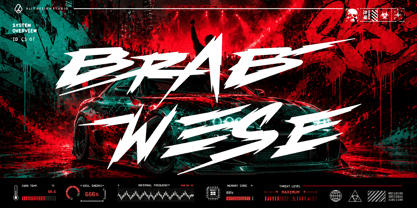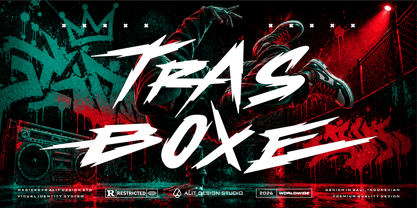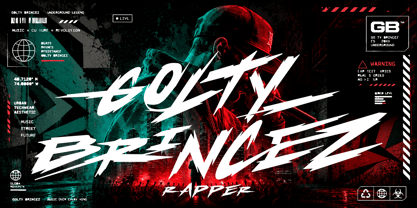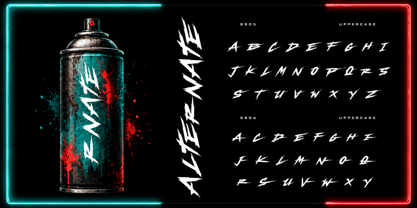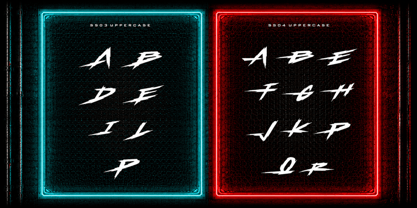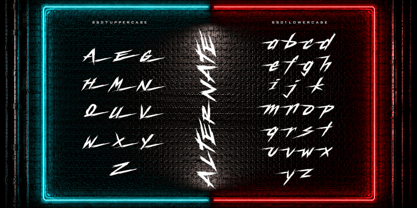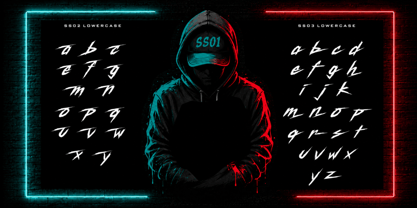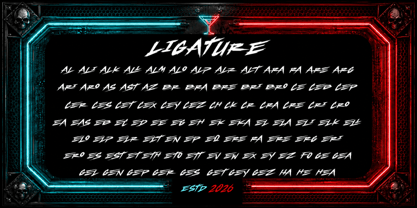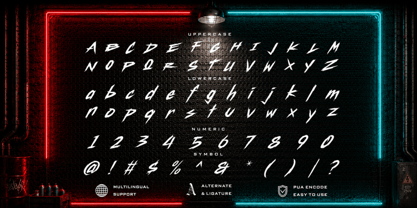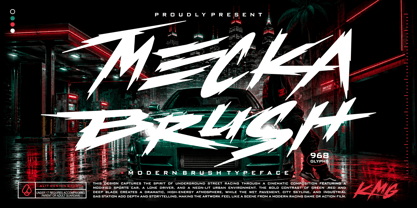
Mecka Brush
Unleash raw, unapologetic energy into your designs with Mecka Brush Typeface, a modern, aggressive, and highly dynamic brush font. Born from the grit of the streets and inspired by underground racing, urban streetwear, and hip-hop culture, this typeface delivers bold, sweeping strokes that immediately command attention.
Whether you are designing for the fast-paced world of automotive sports or creating a striking visual identity for a streetwear brand, Mecka Brush provides a defiant, edgy aesthetic that stands out. Its fast-stroke styling makes it look authentically hand-painted, giving your projects a cinematic and rebellious vibe.
Unmatched Customization:
Built for professional designers who demand versatility, Mecka Brush is an absolute powerhouse. It boasts a massive library of 968 glyphs. With an extensive range of Stylistic Alternates (SS01–SS07) and dozens of custom ligatures, you can effortlessly mix and match characters to ensure your typography never looks repetitive.
Perfect For:
• Streetwear and apparel design
• Automotive and underground racing branding
• Rap, hip-hop, and music album covers
• E-sports and gaming logos
• Action movie posters and cinematic titles
• Graffiti-style art and extreme sports promotions
• High-impact social media graphics and advertising
Key Features:
• 968 Total Glyphs for maximum creative freedom
• Uppercase and Lowercase characters
• Numerals, Punctuation, and Symbols
• Extensive Custom Ligatures for a natural, flowing look
• 7 Sets of Stylistic Alternates (SS01–SS07)
• Comprehensive Multilingual Support
Inject maximum attack and blazing speed into your next project with the Mecka Brush Typeface!